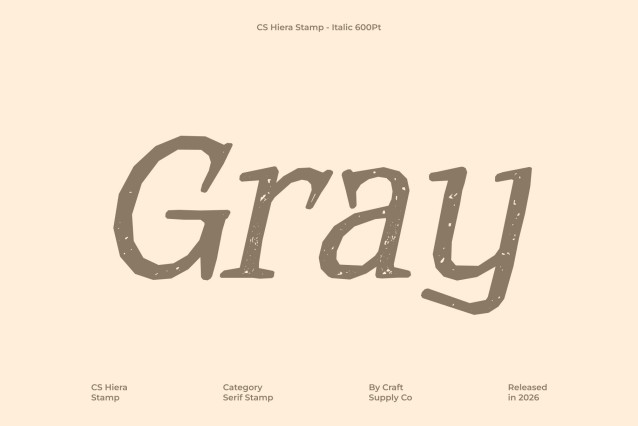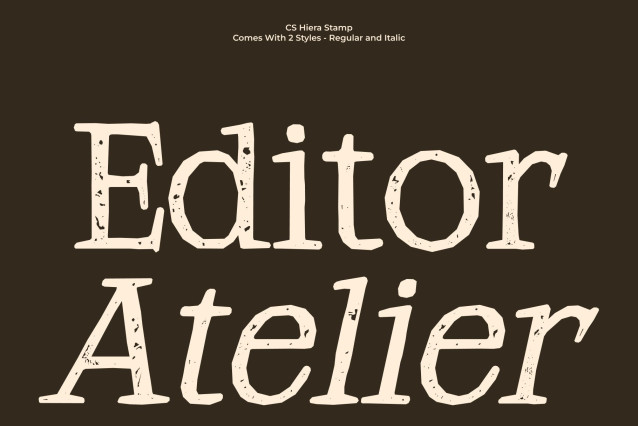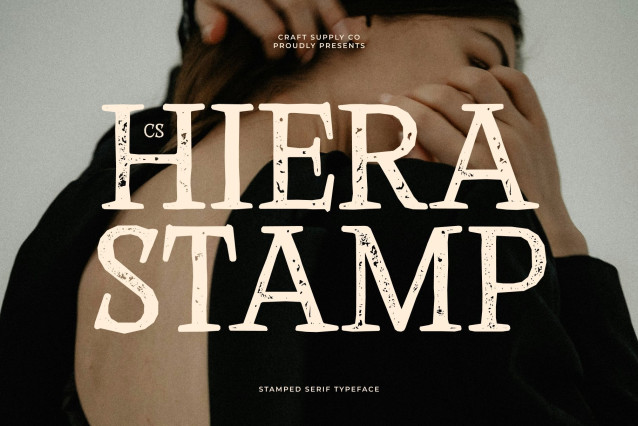
CS Hiera Stamp Font
CS Hiera Stamp – Modern Slab Serif with Timeless Appeal
Bold Elegance with Strong Character
This is a modern slab serif font that blends bold, structured letterforms with refined contemporary styling. Its strong serifs and defined angles create a sense of stability, confidence, and sophistication perfect for designs that need both impact and elegance.
Modern Versatility for Branding and Design
With its striking presence and clean construction, this font performs beautifully across branding, posters, editorial layouts, and digital media. The bold slab serifs ensure visibility and authority, while the balanced proportions keep the typeface polished and professional.
Classic Roots with a Contemporary Voice
Inspired by traditional slab serif typography, this font feels timeless yet modern. It brings together heritage and innovation, making it suitable for luxury branding, corporate identities, creative campaigns, and bold editorial headlines.